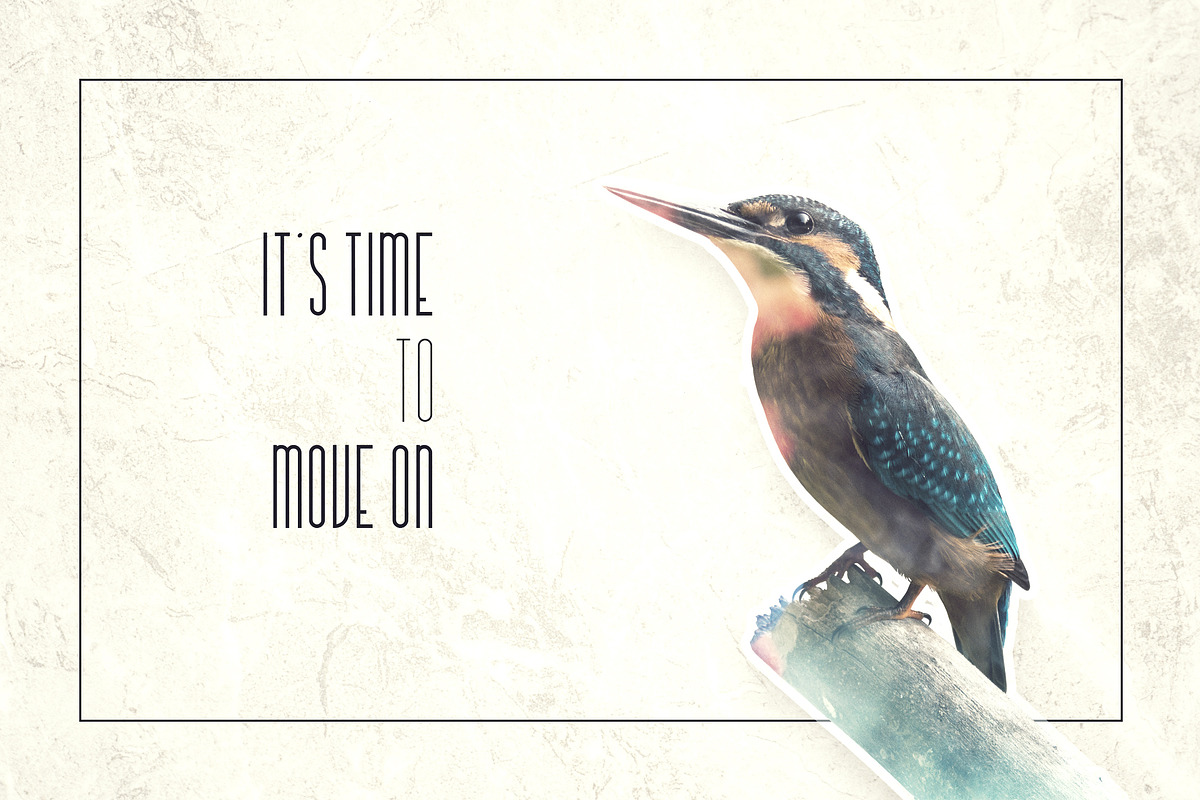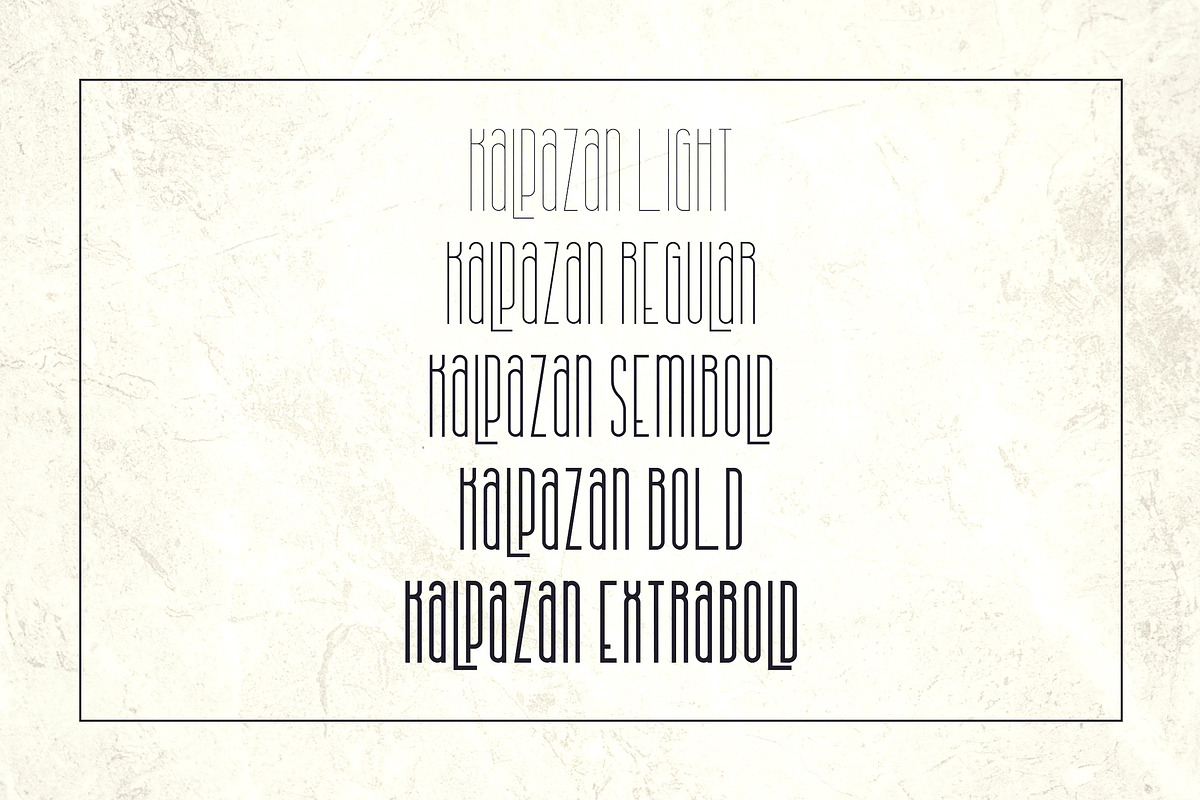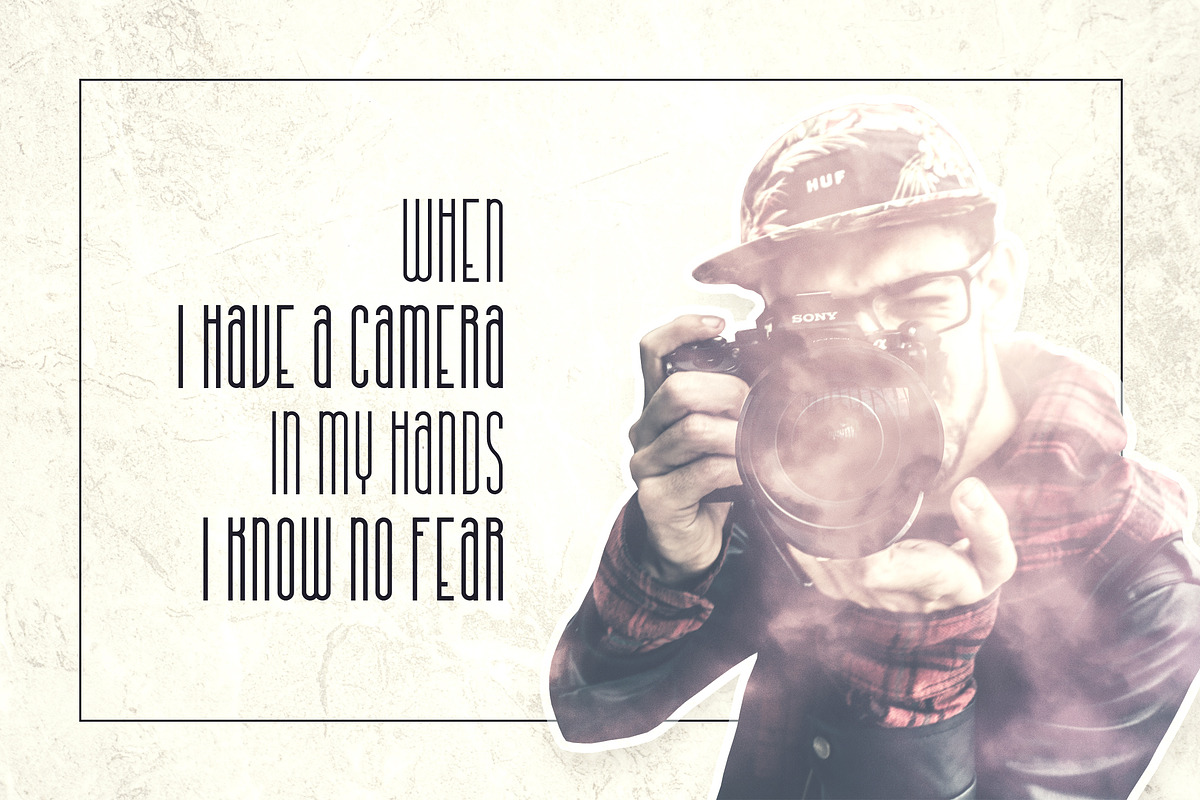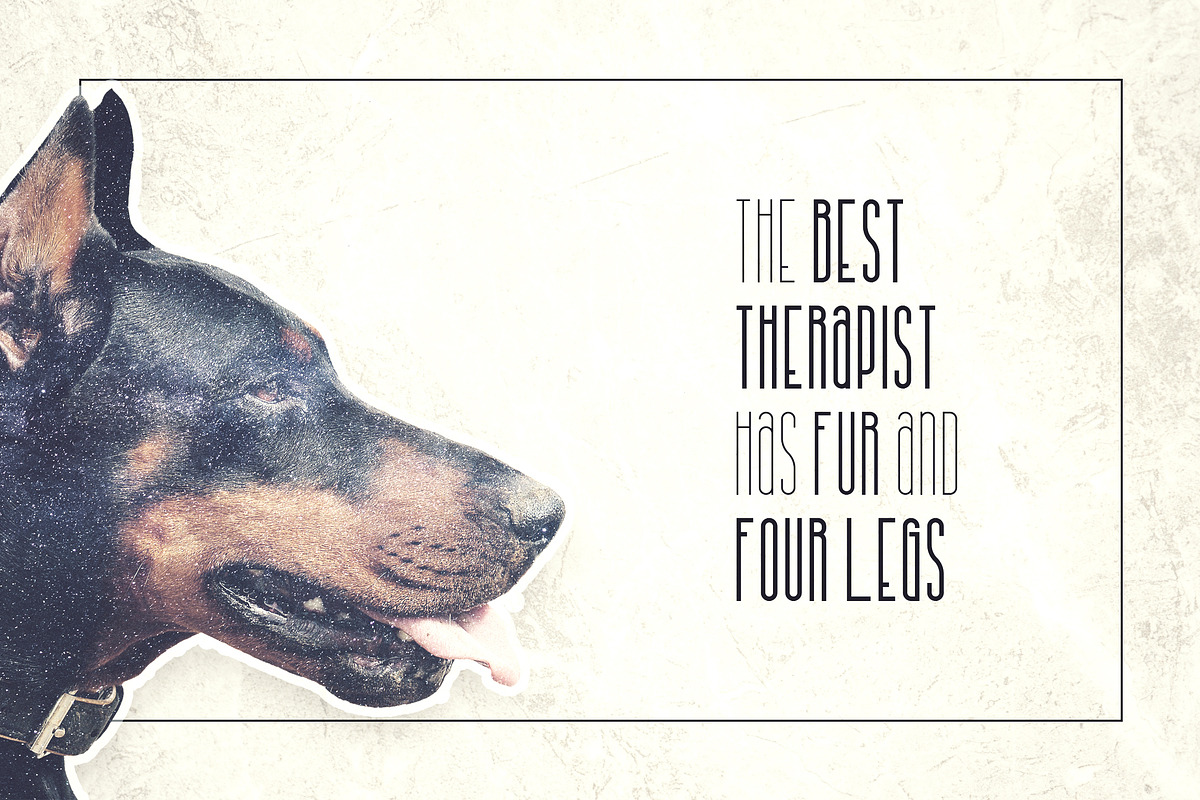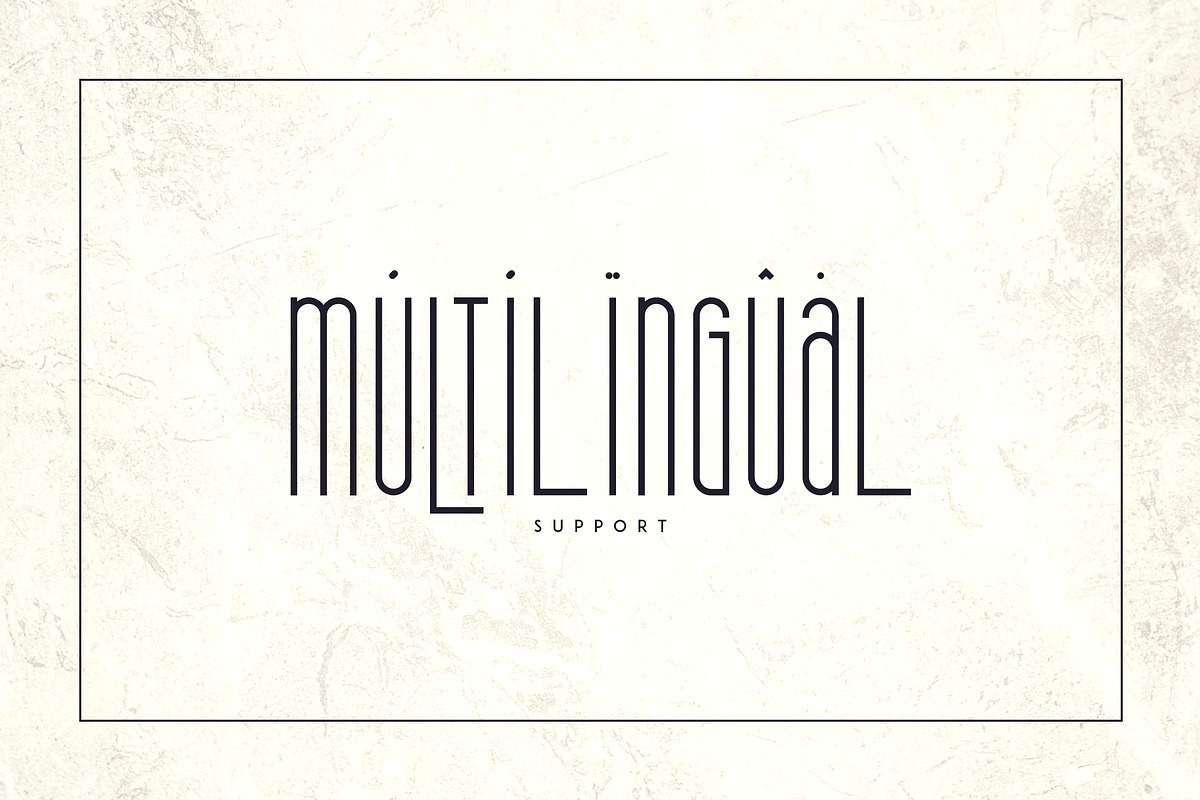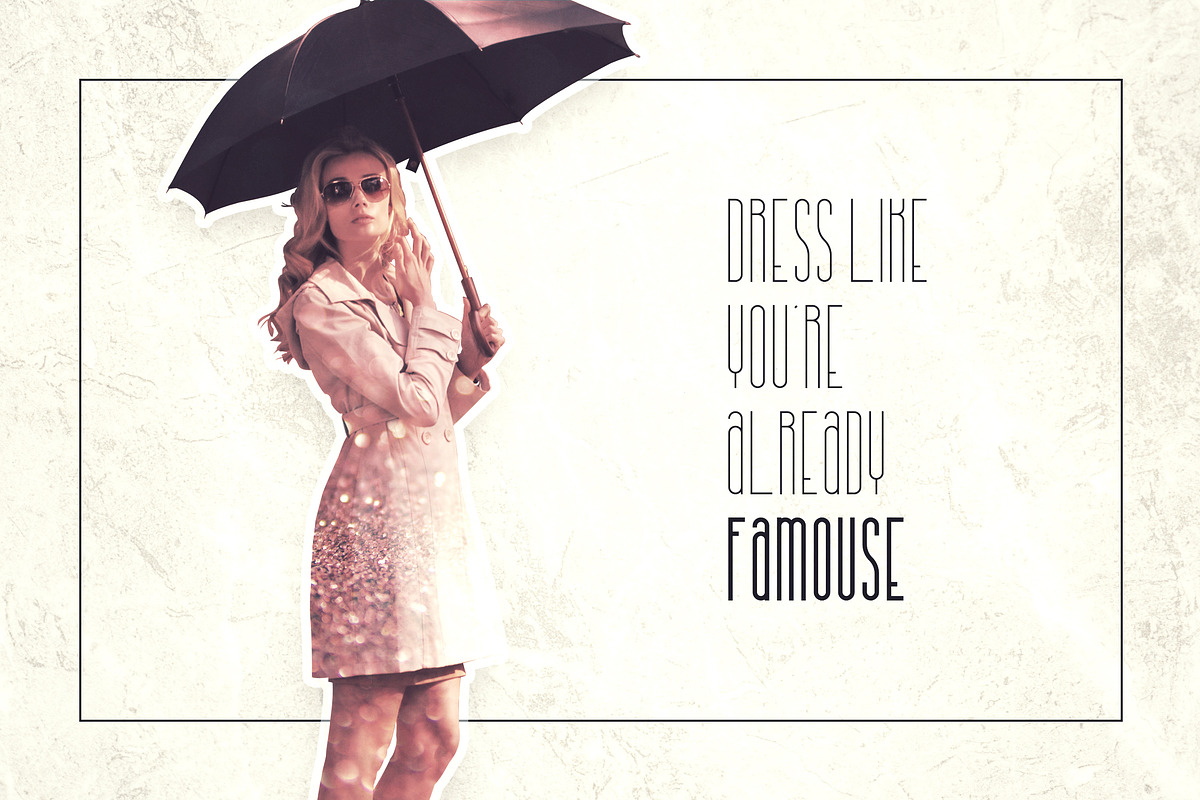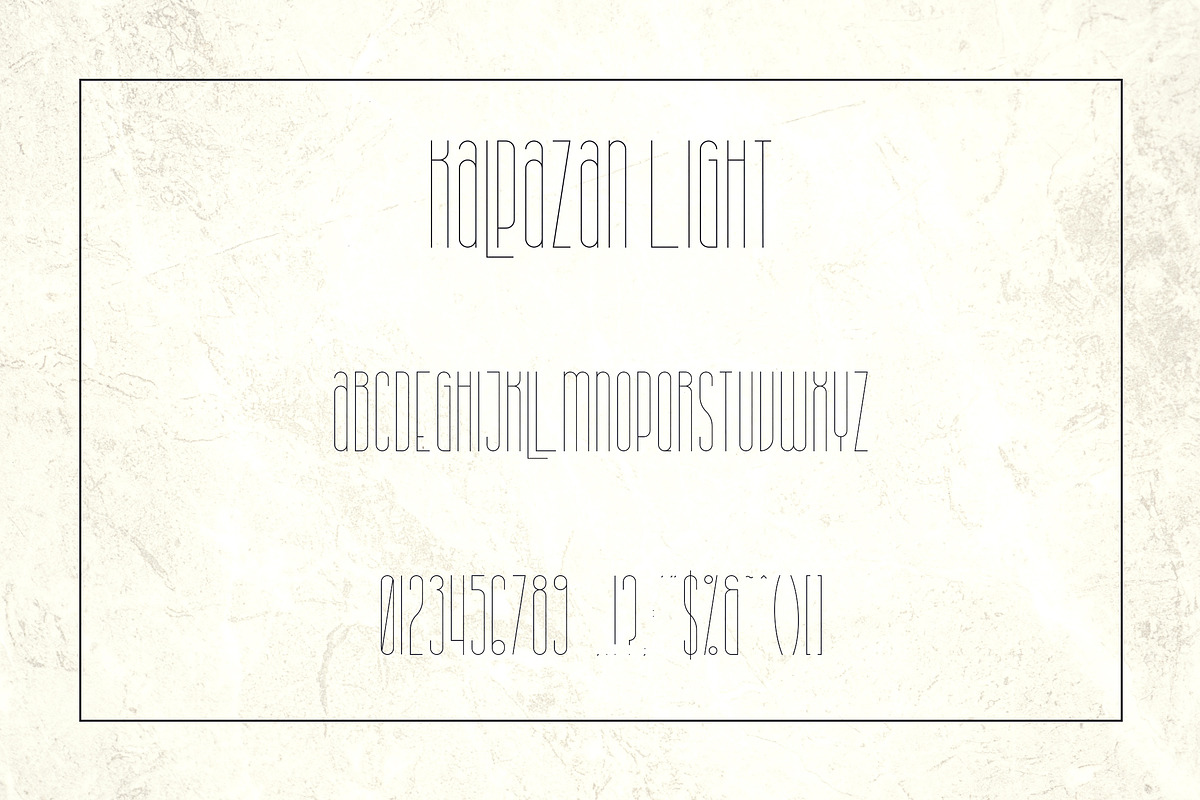
Kalpazan is elegant high end sans serif typeface with multilingual support and light, regular, semibold, bold, extrabold fonts . It's a very versatile font that works great in large and small sizes.
Kalpazan is perfect for branding projects, home-ware designs, product packaging, wedding invitations, magazine headers - or simply as a stylish text overlay to any background image.